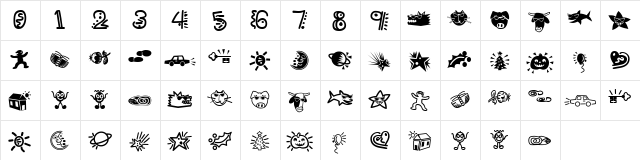
PopticsThreeExtras Regular
Design Context for PopticsThreeExtras Typeface
PopticsThreeExtras is a composed and adaptable typeface that performs quietly and consistently across a wide range of design contexts.